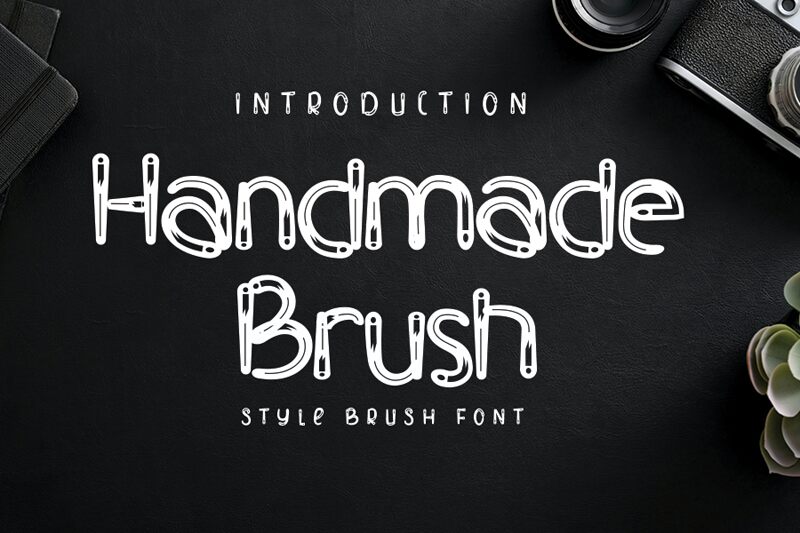
Handmade Brush
Handmade Brush, crafted by the creative minds at Inermedia Studio, is a display font that exudes a raw and authentic charm. Its textured strokes and irregular contours evoke the handcrafted artistry of brushwork, making it an ideal choice for projects that require a personal touch with an edge. The deliberate unevenness of line thickness within each character adds a dynamic rhythm to the text, suggesting movement and energy.
This font stands out for its aesthetic appeal that combines roughness with elegance—an oxymoron that Handmade Brush masterfully balances. Its stylistic approach lends itself well to bold headings, artistic branding, eye-catching posters, and any design work seeking to convey originality and flair. Whether you're looking to infuse your project with a sense of individuality or aiming for an approachable yet distinctive look, Handmade Brush is poised to deliver visual impact with every glyph.